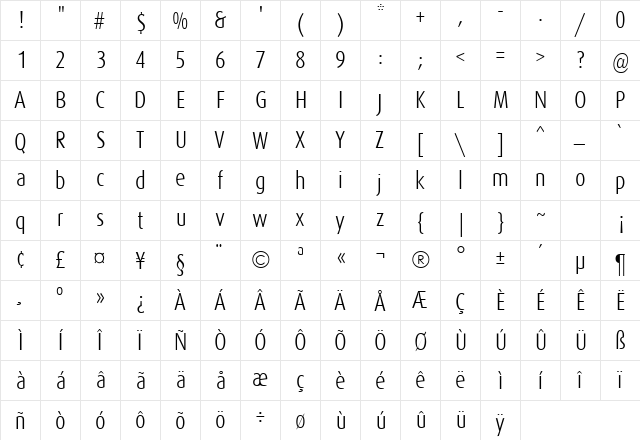
DaxCondensed-Light Regular
Design Context for DaxCondensed-Light Typeface
DaxCondensed-Light is a composed and adaptable typeface that performs quietly and consistently across a wide range of design contexts. Its slender proportions lend an understated elegance to any composition. Its narrow stance lets it pack a punch even in space-constrained designs.